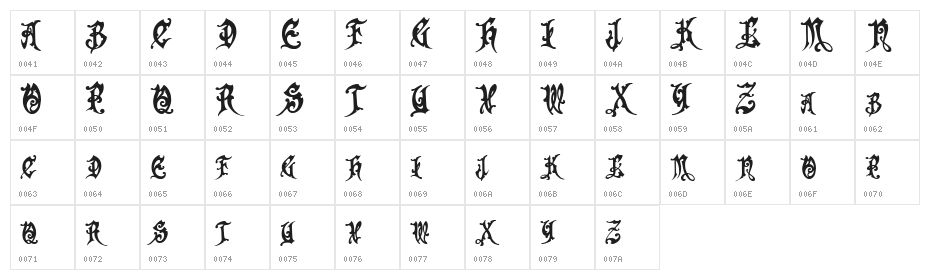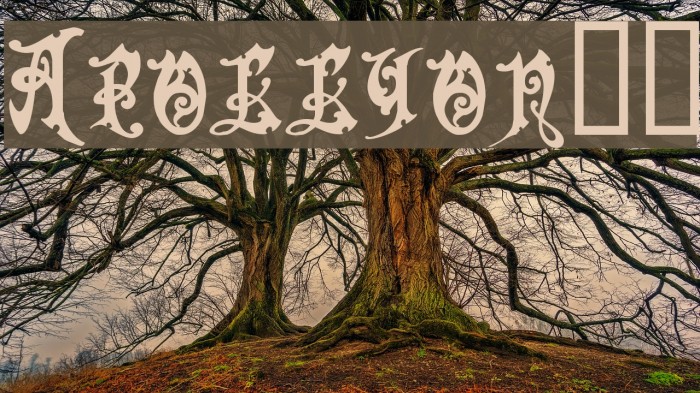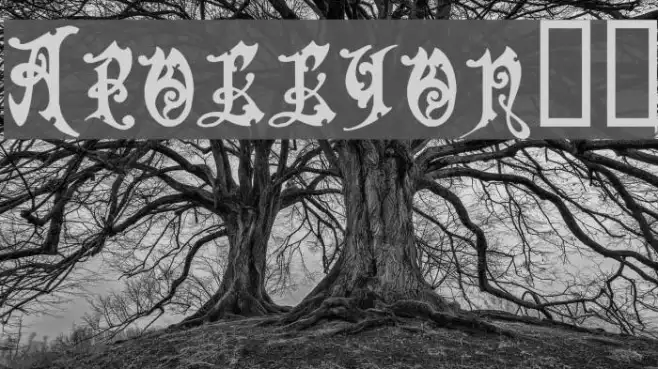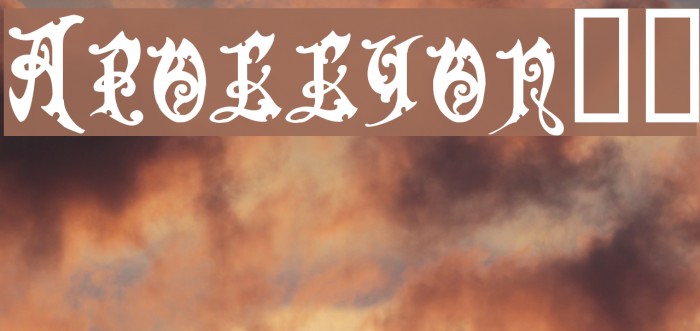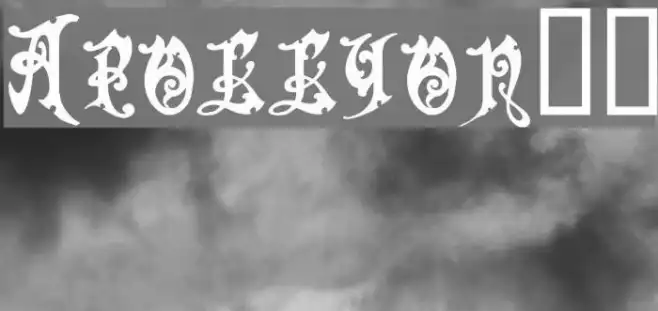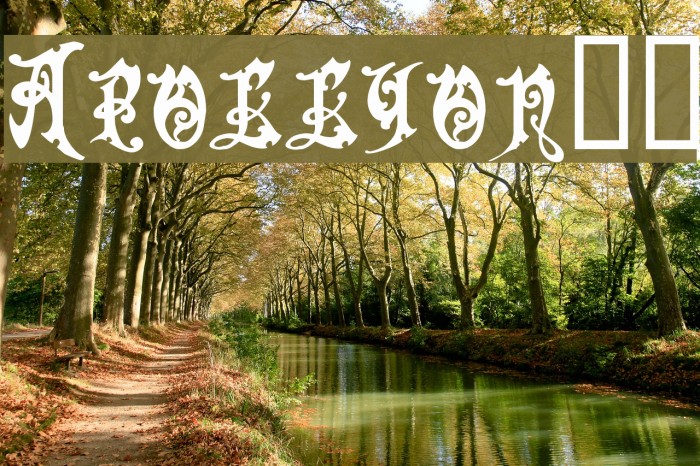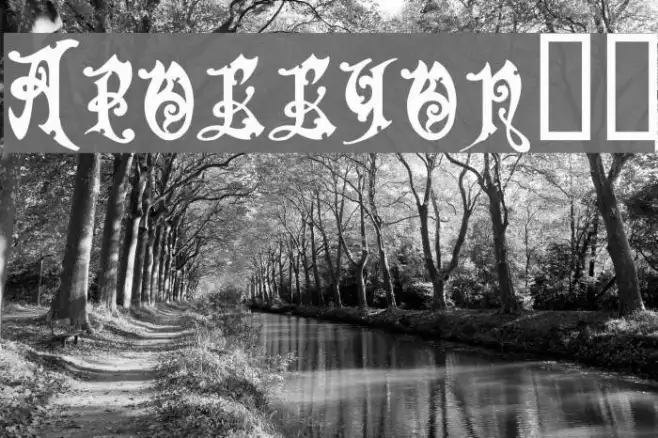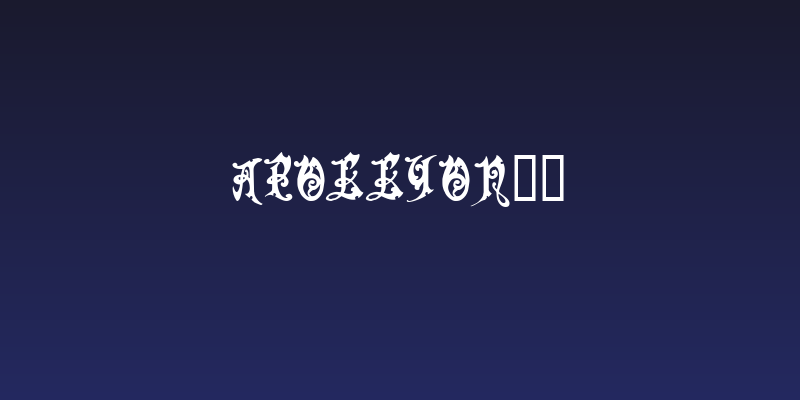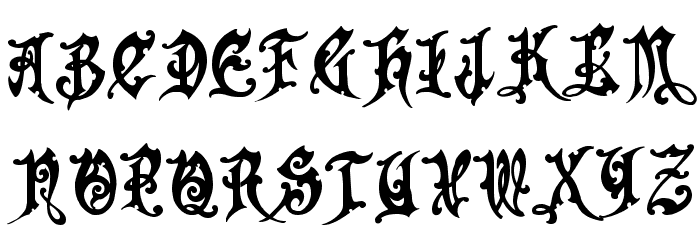
Apollyon!" Font
Apollyon!" Description
This font embodies a classic blackletter style, reminiscent of medieval script with its intricate and ornate design. The characters are adorned with elaborate flourishes and sharp, angular strokes that give it a dramatic and historical appearance. The uppercase letters are particularly striking, with bold, sweeping lines and decorative elements that enhance their visual impact. The lowercase letters maintain the same level of detail, ensuring consistency throughout the typeface. This font's unique style makes it ideal for projects that require a touch of elegance and tradition.
| Use Case | Logos, Headlines, Decorative purposes |
| Proposed Projects | Ideal for historical documents, wedding invitations, book covers, and branding that requires a vintage or gothic touch. |